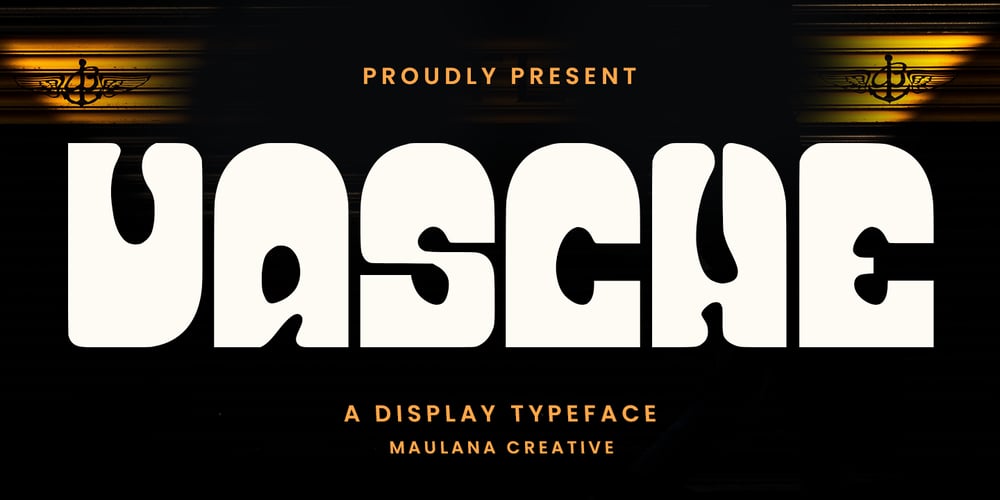
Vasche Font Family was designed by Gilang Maulana and published by Maulana Creative. Vasche contains 1 styles and family package options. Vasche decorative display font. Light stroke, fun character with a bit of ligatures and alternates. To give you an extra creative work. Vasche font support multilingual more than 100+ language. This font is good for logo design, Social media, Movie Titles, Books Titles, a short text even a long text letter and good for your secondary text font with script or serif. Make a stunning work with Vasche font.Cheers,Maulana Creative